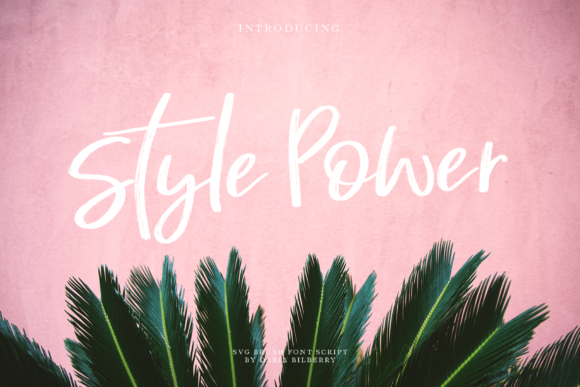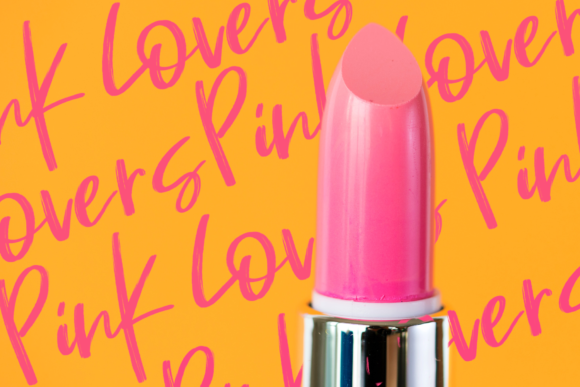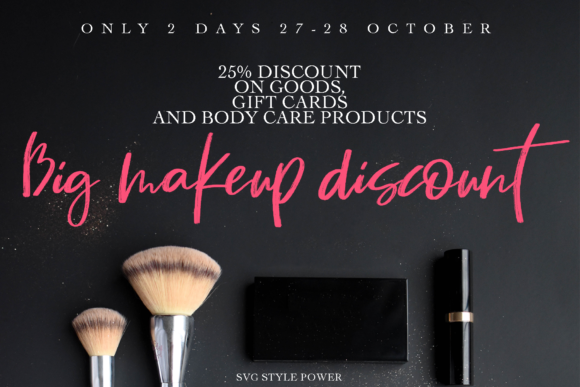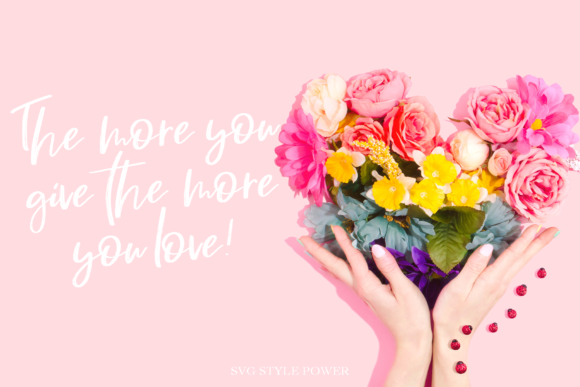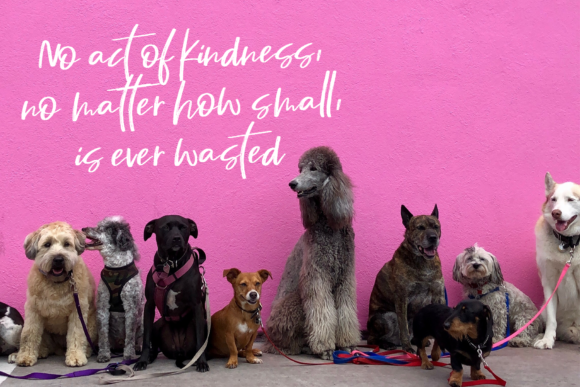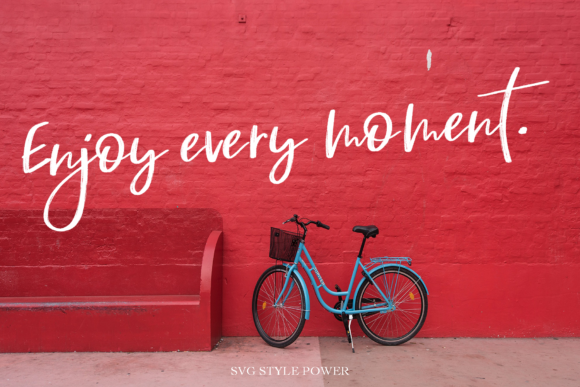
Style Power Font
About Style Power Font
Style Power stands out as a casual script font, meticulously crafted through a unique process. Initially drawn in charcoal, the characters were then meticulously transferred to a digital version, resulting in a font that carries the expressive and organic qualities of hand-drawn typography. This careful process ensures that Style Power brings a touch of authenticity to typographical designs.
What sets Style Power apart is its dedication to capturing the essence of hand-drawn lettering. The transition from charcoal to digital form preserves the nuances and imperfections inherent in hand-drawn designs, adding a layer of character and charm to each letter.
An additional highlight of Style Power is its inclusion of a highly detailed SVG version. This version takes the authenticity a step further by converting hand-painted lettering into a digital format. The result is a font that not only maintains the casual and expressive qualities of hand-drawn script but also offers a highly detailed and intricate representation through the SVG version.
This dual approach to crafting Style Power, both in charcoal and as an SVG version, makes it a versatile choice for a range of typographical projects. From casual and laid-back designs to those requiring a more detailed and intricate touch, Style Power adapts to various creative needs.
In summary, Style Power is not just a casual script font; it’s a carefully curated design that blends the traditional charm of hand-drawn lettering with the precision of digital craftsmanship. Its unique process, from charcoal sketches to a highly detailed SVG version, makes it a distinctive and adaptable font for creating beautiful and expressive typographical designs.